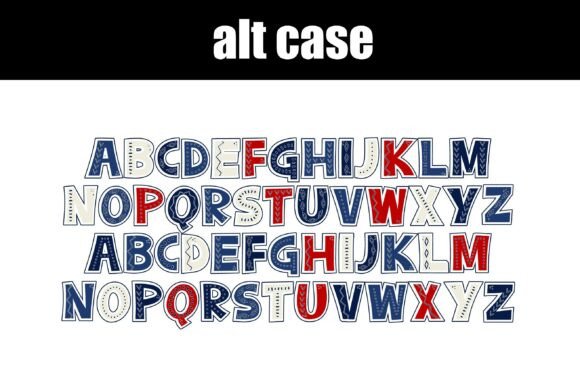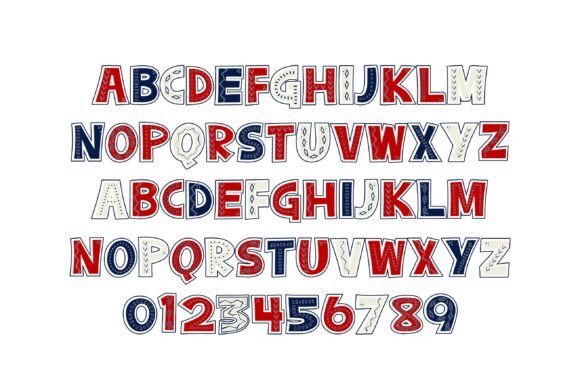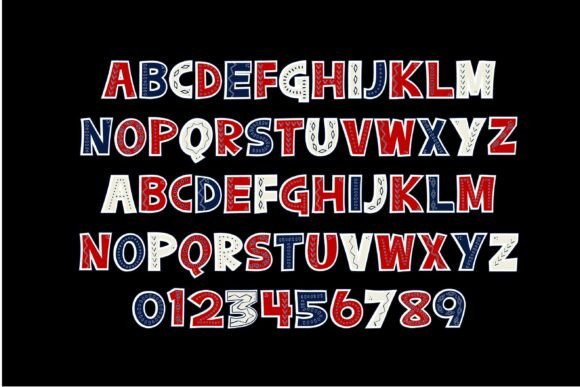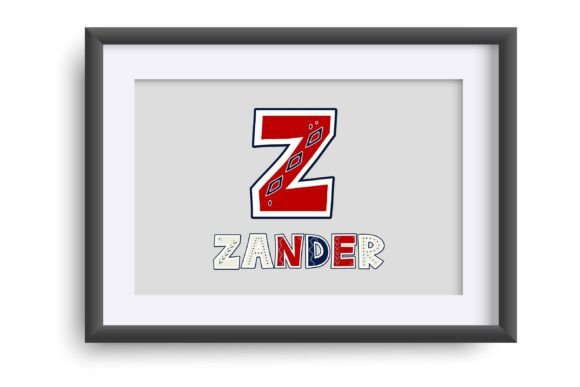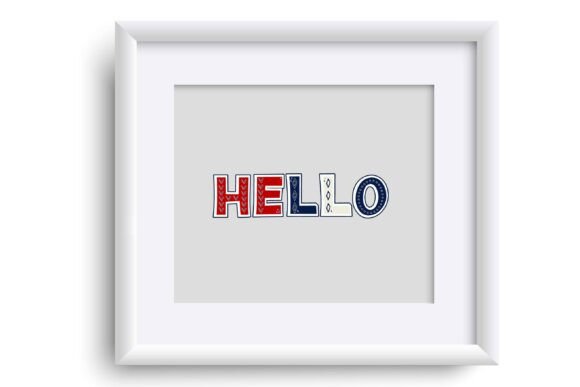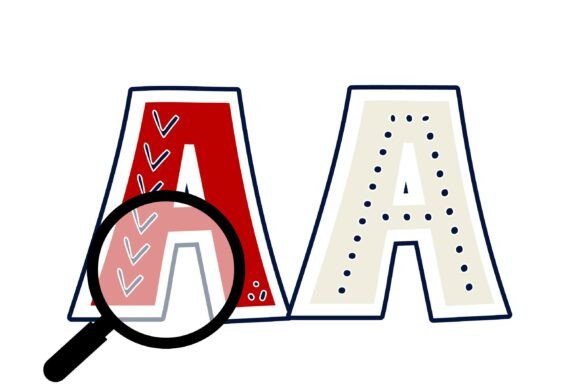
Unlock the Vibrant Spirit of America in Your Designs
You know that moment when you’re brainstorming a new project and suddenly, a spark of creativity hits you? For many designers, it’s the thrill of discovering a font that perfectly captures the essence of their vision. The American Vibes Font is one such gem that’s sure to ignite your imagination and add a dash of personality to your designs.
This full-color font is a masterful blend of chunky sans serif typography and whimsical patterns, all set against a vibrant American color palette. With its OpenType full-color (SVG) capabilities, you can unlock a world of creative possibilities and bring your designs to life in a way that’s truly unique. Whether you’re a seasoned designer or just starting out, the American Vibes Font is a valuable addition to your toolkit, offering endless opportunities to express your artistic vision.
Key Features of American Vibes Font
- Font Family: American Vibes
- Unique Characteristics:
- Hand-drawn style with a vintage feel
- Highly customizable with a wide range of OpenType features
Designer Review: American Vibes Font
Overall, I was impressed with the American Vibes Font. It has a unique blend of classic and modern elements that can add a touch of nostalgia to any design. ✨ Here are some of the things I liked about it:
- It has a wide range of styles and weights, making it versatile for different design applications.
- The font has a friendly, approachable feel that’s perfect for casual designs like social media posts, blog titles, and headings.
- The font’s kerning and spacing are well-designed, making it easy to read and use.
However, I did encounter some limitations with the font. ⚠️ Here are some potential issues to consider:
- The font may not be suitable for formal or professional designs, as it has a more casual and playful feel.
- The font’s bold and condensed styles can be difficult to read at small font sizes.
- The font may not be optimized for use in very long blocks of text, as it can start to feel cluttered and overwhelming.
Overall, I think the American Vibes Font is a great choice for designers looking to add a touch of classic Americana to their work. While it has some limitations, it’s a versatile and well-designed font that can add a lot of character to your designs.
Tips for Getting the Most Out of American Vibes Font
Use American Vibes Font for designs that require a casual, laid-back feel.
Pair it with bold colors and playful graphics for a fun and energetic look.
Use it for social media graphics, flyers, and posters to add a touch of American charm.
Use American Vibes Font for:
Branding and marketing materials.
Social media graphics and posts.
Flyers and posters for events.
Business cards and letterheads.